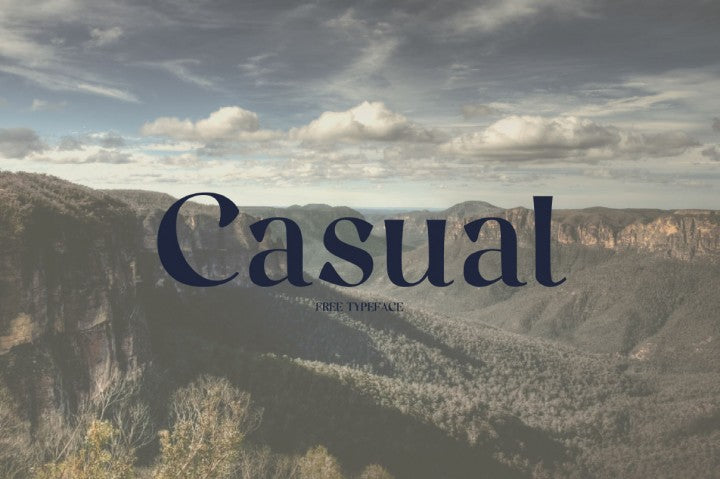
Free Casual Font
Today we're glad to feature this free casual font. The Hungry JPEG has created this amazing and beautiful typeface. Amaze your fellow designers and create stunning designs with this fancy font.